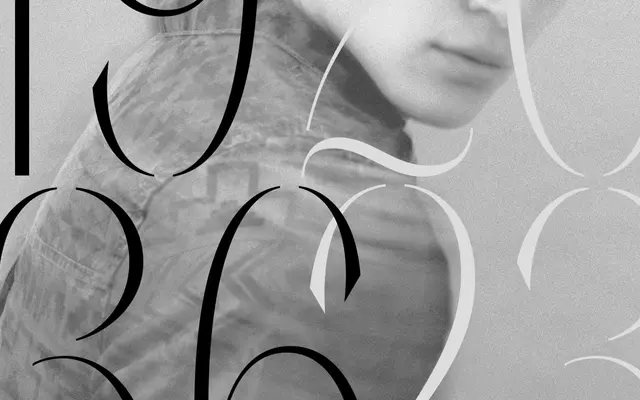
Négligé
A high-contrast display serif by Valerio Monopoli that mixes geometric structure with swash capitals, stencil cuts and a variable font across five optical sizes.
Designed by Valerio Monopoli, the family spans five named sizes from XX Small to Large, each available in both a regular and stencil version, plus a variable cut. Swash capitals, curly alternates, discretionary ligatures and old-style figures sit alongside the contrasting strokes, giving it range for fashion, editorial and identity work. The stencil subfamily adds an alternative register without departing from the overall character.
A high-contrast serif with geometric underpinnings, decorative swash capitals and stencil variants; the dramatic thick-thin stroke contrast and ornamental features place it firmly in the display category.